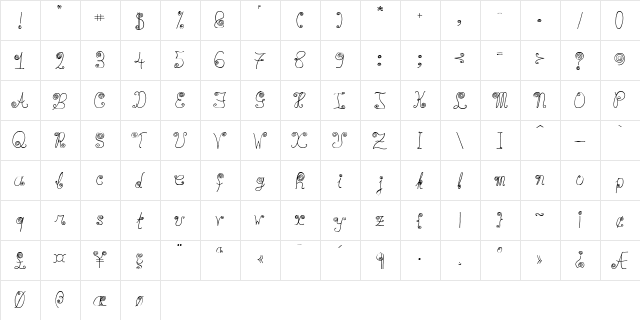
WaaibergSM Regular
Design Context for WaaibergSM Typeface
WaaibergSM is a composed and adaptable typeface that performs quietly and consistently across a wide range of design contexts.